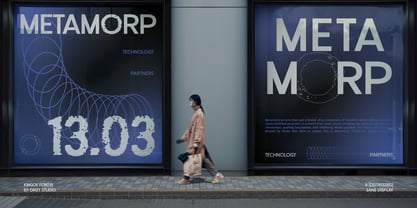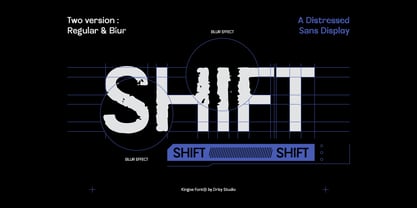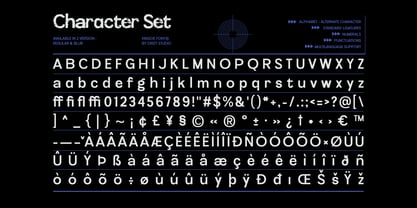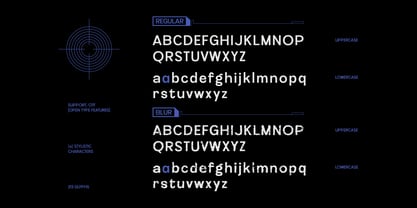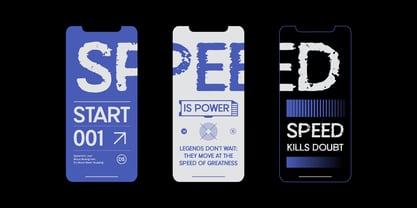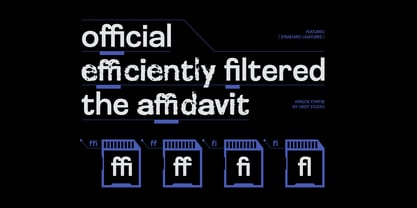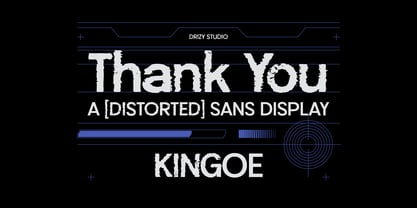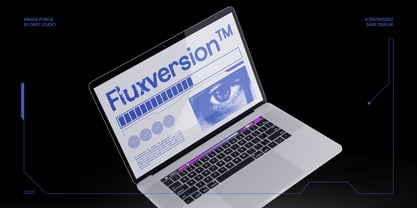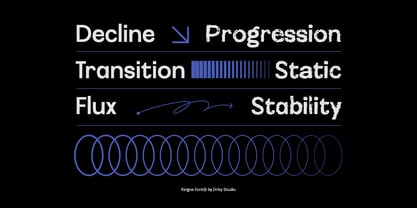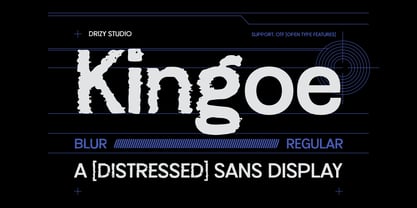
Kingoe
The Kingoe Font Family was designed by Panca Ahmadi Hasan and published by Drizy Font. Kingoe contains 2 styles and family package options.
Kingoe – Distorted Sans Display Font
Step into the world of bold, unconventional typography with Kingoe, a designed to break the mold. Featuring warped edges and dynamic irregularities, this font exudes a raw, rebellious energy that instantly grabs attention. Whether you’re working on eye-catching headlines, edgy branding, or futuristic designs, Kingoe adds a unique and daring touch to your creative projects. Its distinct, Distorted Sans Serif style makes it the perfect choice for album covers, streetwear graphics, experimental posters, and any design that dares to stand out. If you’re looking for a font that challenges the ordinary and brings a sense of bold creativity and movement to your work, Kingoe is the perfect fit. Let your designs defy tradition and make an unforgettable impact!
Kingoe – Distorted Sans Display Font features:
• Character Set (Uppercase & Lowercase)
• Punctuation & Numbers
• Multilingual
• Two version: Regular & Blur
• Standard Ligatures
• Alternate
Elevate and explore the design possibilities with this Distorted Sans Serif Font!